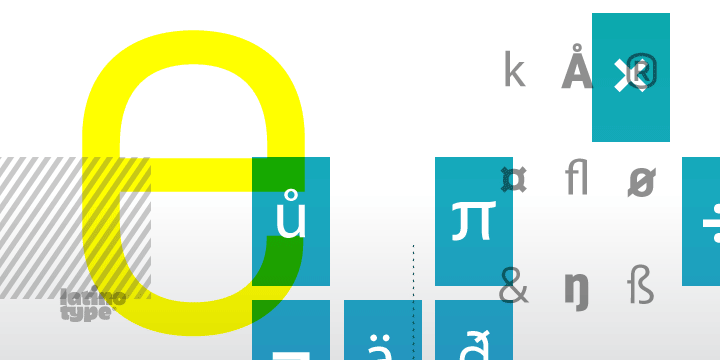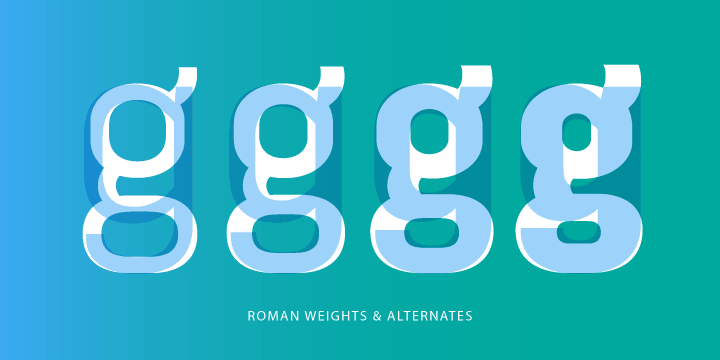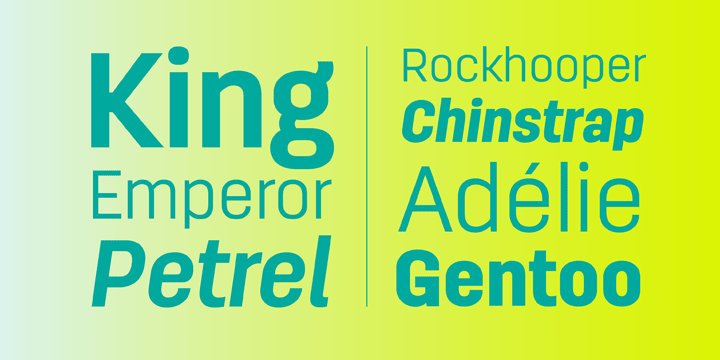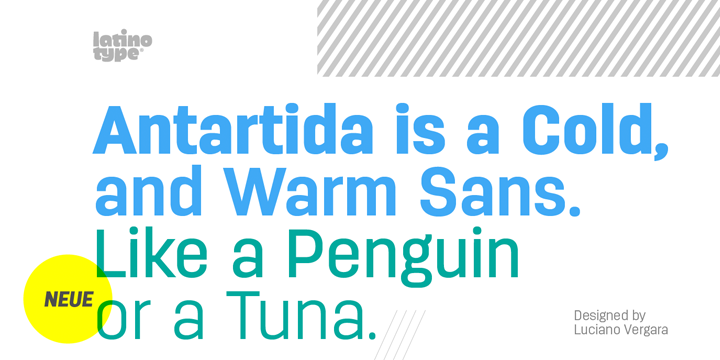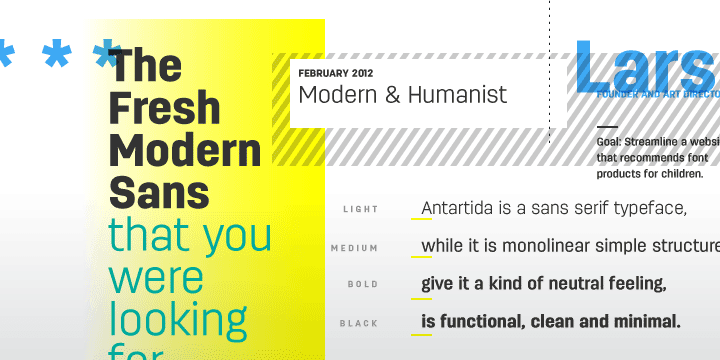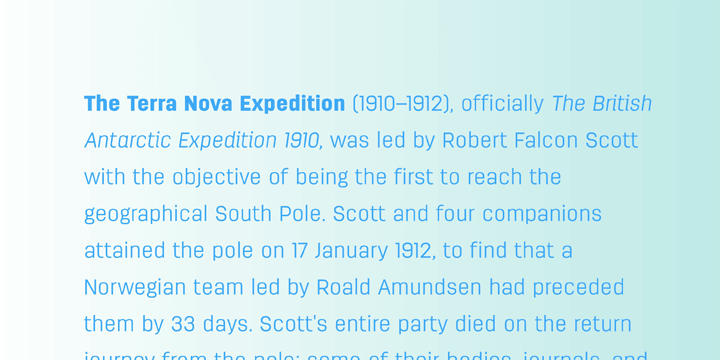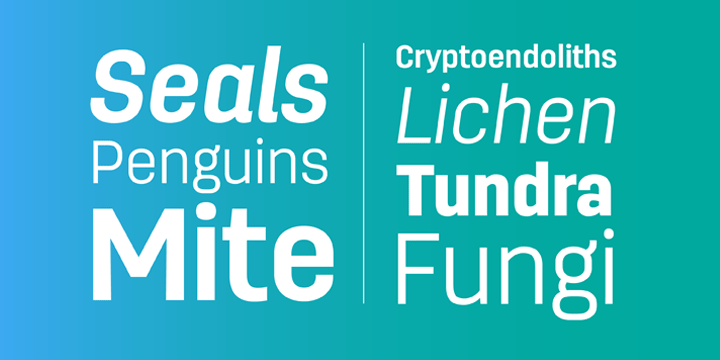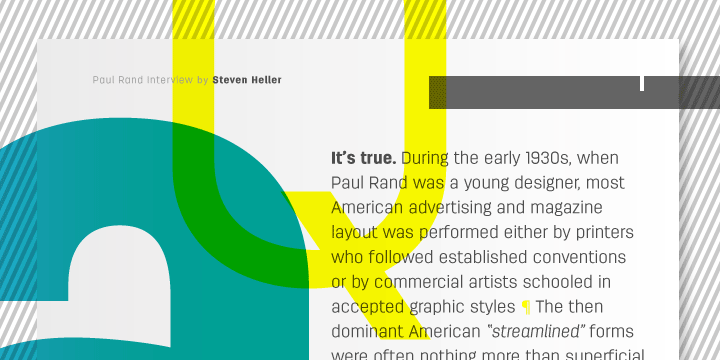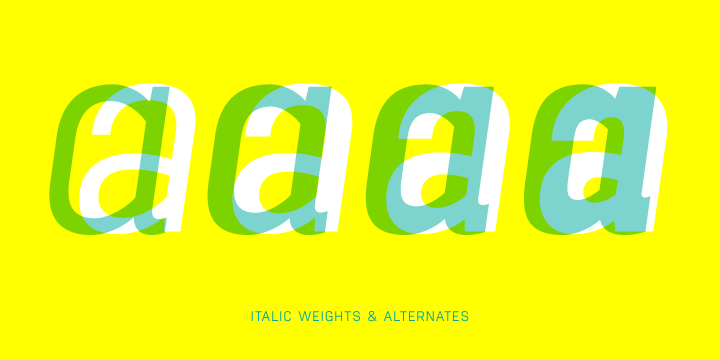
Antartida is a sans serif font family. This typeface has eight styles and was published by Latinotype.
Antartida is a sans serif typeface, while it is monolinear simple structure give it a kind of neutral feeling, is functional, clean and minimal. Is a family of 8 fonts, 4 weights and italics. This typeface contains alternate glyphs that help to emphasize text or headlines.